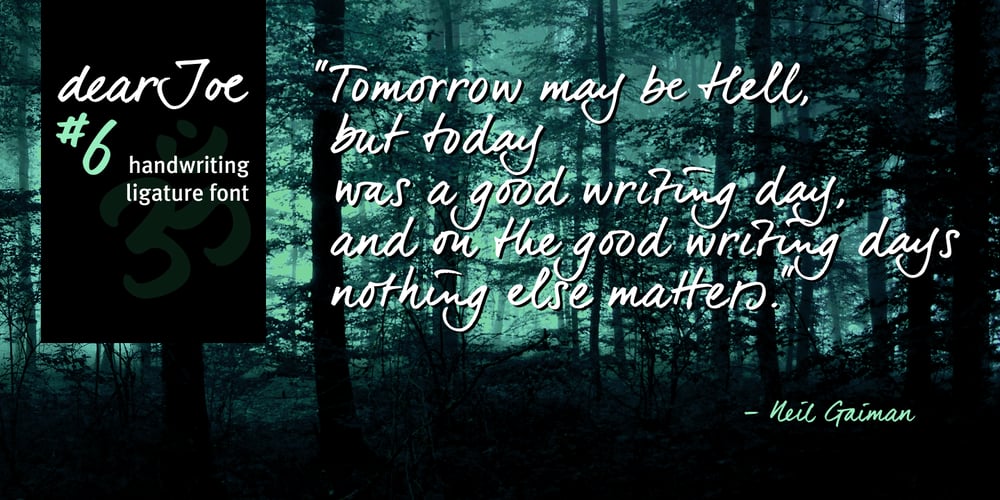
DearJoe 6
DearJoe 6 font
DearJoe 6 Font Family was designed by Jeroen “Joebob” van der Ham and published by JOEBOB graphics. DearJoe 6 contains 1 styles and family package options. The dearJoe series of fonts had it’s origin somewhere around 1999, the year I created dearJoe 1, which was a first (and half-assed) attempt at converting my own handwriting into a working font. Being able to type in my own handwriting had always been a childhood fantasy, and even though I only partly understood the software, a working font was generated and I decided to put it on the internet for people to use. And that’s what they did: at this moment the dearJoe 1 font has been downloaded millions of times and can be found on just about anything, ranging from Vietnamese riksjas, a Tasmanian gym to a fancy chocolate store on 5th Avenue. The font is not something I am particularly proud of, but it started me of in building what later became the JOEBOB graphics font foundry. Inbetween creating other fonts, the dearJoe series has become a theme I revisit every once in a while, trying to create an update on how my handwriting evolved, along with my abilities in creating fonts that mimic actual handwriting. In the last decade or so I started implementing ligatures and alternate characters, which helped a lot in making something that can almost pass for actual handwriting.